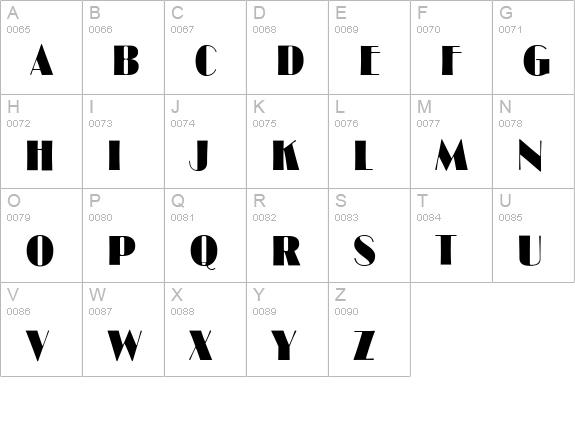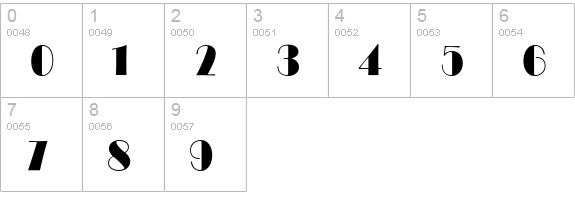
CgBroadway Font Details
CgBroadway is a stylish and elegant font that exudes sophistication and class. With its bold and eye-catching design, CgBroadway is perfect for adding a touch of glamour to any project. Whether you're creating posters, invitations, or branding materials, this font is sure to make a statement. The best part? CgBroadway is available for free download at FontsMarket.com. Simply head over to the website to get your hands on this stunning font and start incorporating it into your designs today. Don't miss out on the opportunity to elevate your work with the timeless beauty of CgBroadway.